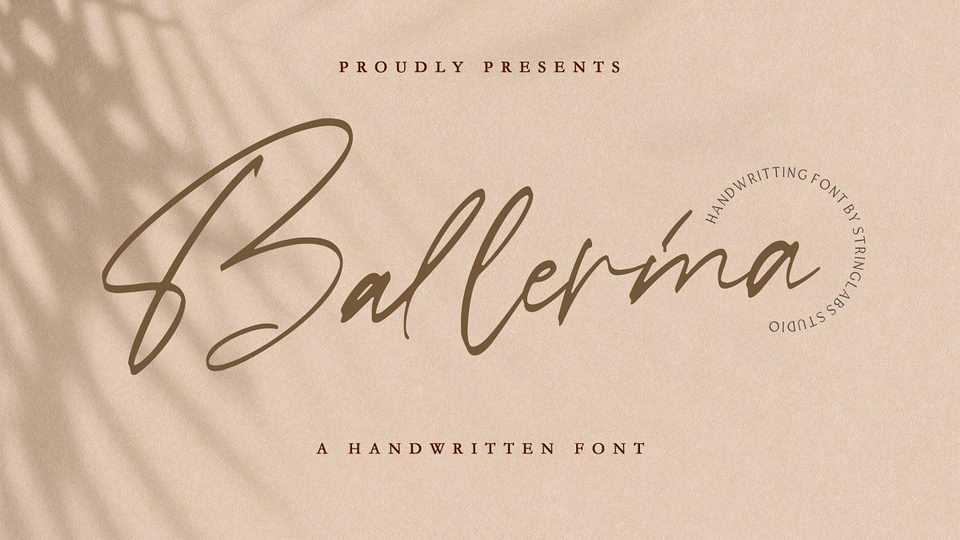
Download Ballerina font, a stylish signature script with modern look. Ballerina is perfect for fashion brand, wedding invitation, business card, logo brand, signature, and other projects that need a natural handwriting.